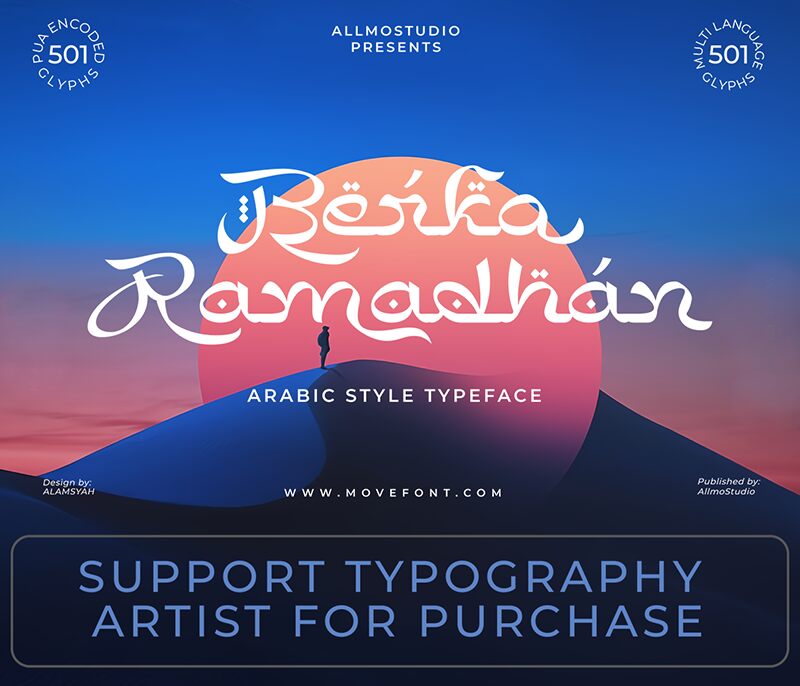
Berka Ramadhan font by Allmostudio is a free decorative faux-Arabic script typeface that wraps your text in a festive, Ramadan-inspired rhythm. Its looping strokes, teardrop curls, and playful dots give Latin letters a handwritten Middle Eastern flavor without becoming hard to read. The forms feel smooth and inky, like they were brushed in one confident sweep, bringing warmth and celebration to any layout.
Using Berka Ramadhan, you can instantly theme Ramadan and Eid posters, greeting cards, social media promos, YouTube thumbnails, food or bazaar flyers, and packaging for dates or sweets. This free font shines in large titles where its ornate curves can breathe; pair it with a clean sans serif for body text to keep everything clear and balanced.